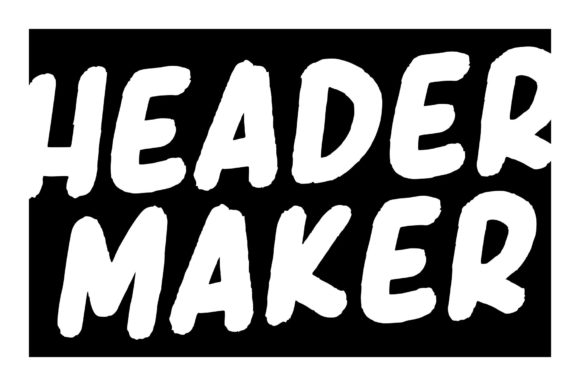
Head over heels for Halloween? Sink your teeth into Header Maker, the bewitching display font that'll cast a spell on your designs! Unleash the spooky spirit within and craft enchanting posters that'll make your spine tingle. Let your imagination run wild as you conjure up spellbinding invitations and spine-chilling social media posts. It's the perfect font to make your Halloween creations stand out!
Step into the realm of the eerie with Header Maker's bold and chunky characters, each one brimming with Halloween charm. Each letter is meticulously crafted to evoke a sense of mystery and intrigue, making it the ideal choice for creating haunting headers, eye-catching logos, and bewitching branding. Make your Halloween designs howl with delight using this font!
But Header Maker's magic isn't limited to Halloween. Its versatility extends far beyond the realm of the supernatural, making it a must-have for any designer's toolkit. Whether you're creating invitations for a whimsical birthday party, designing posters for a retro-themed event, or crafting social media graphics that pop, Header Maker will cast its spell and leave your audience spellbound.
Embrace the enchanting allure of Header Maker, the font that will ignite your creativity and make your designs shine brighter than a full moon on Halloween night. Don't resist the call of the spooky season - download Header Maker today and let the haunting beauty of your designs take center stage!